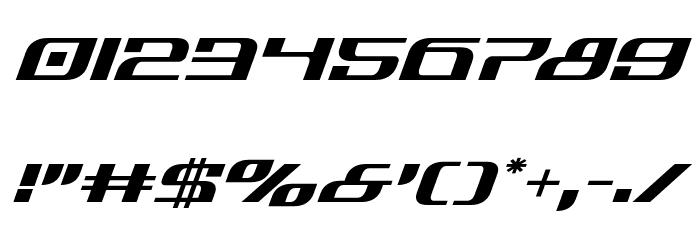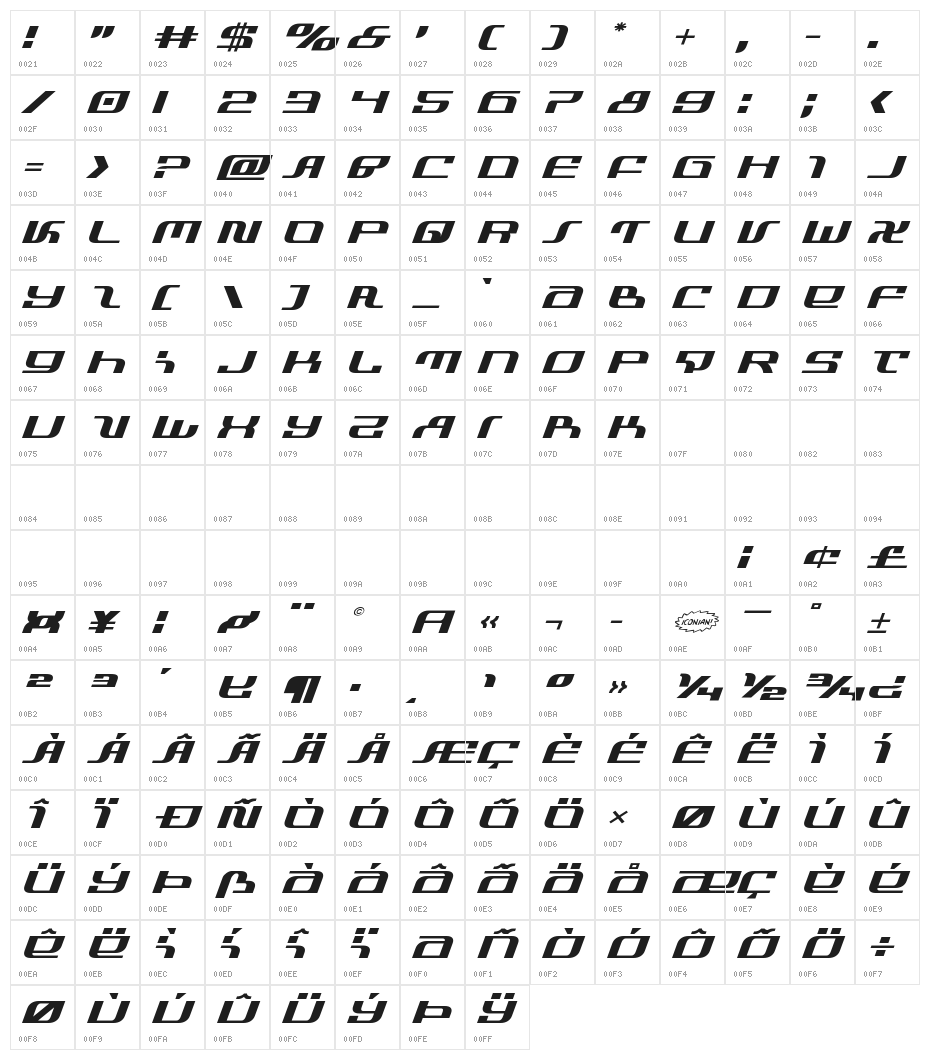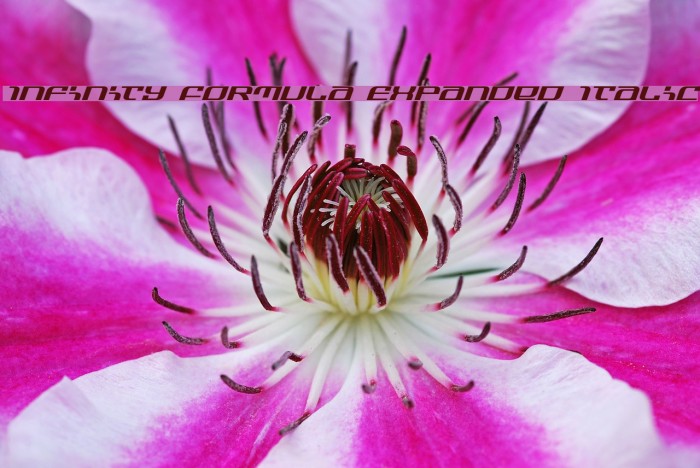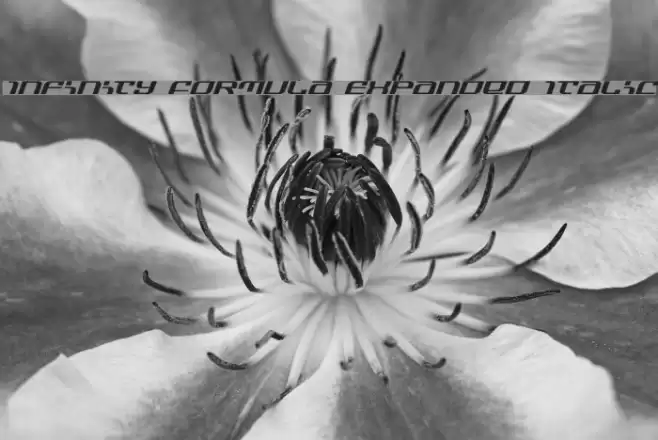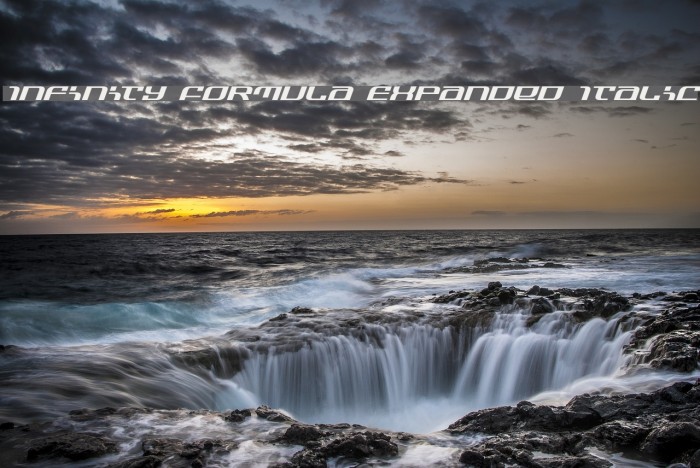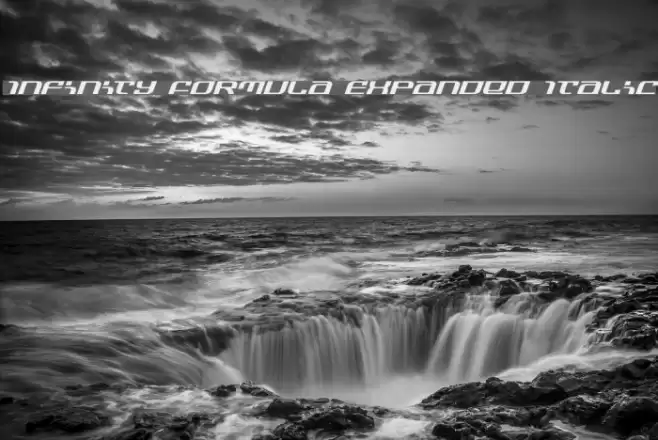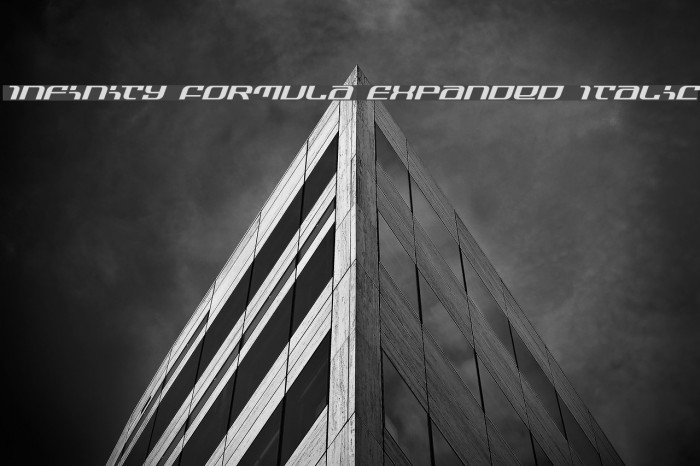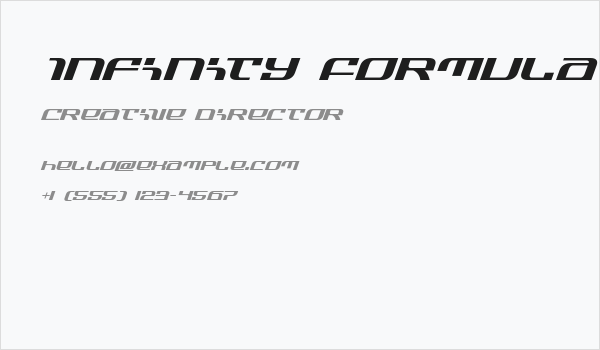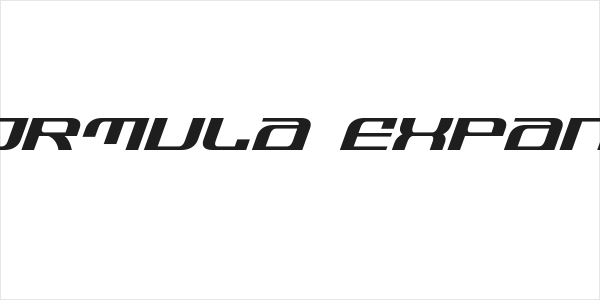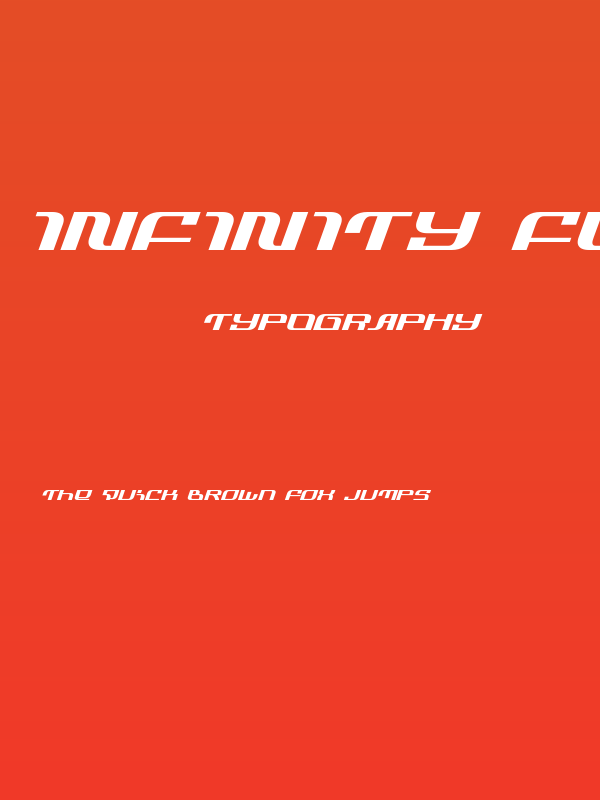
Infinity Formula Expanded Italic Font
Infinity Formula Expanded Italic Description
This font features a sleek, futuristic design with an italicized, expanded style. The characters are bold and have a distinct slant, giving them a sense of motion and speed. The strokes are uniform in thickness, contributing to a modern and streamlined appearance. The uppercase and lowercase letters maintain a consistent style, with sharp angles and clean lines. The numerals and special characters follow the same aesthetic, ensuring a cohesive look across all text elements. This font is ideal for projects that require a dynamic and contemporary feel.
| Use Case | Logos, Headlines, Branding |
| Proposed Projects | Ideal for branding, sports team logos, automotive design, and tech-related projects. |